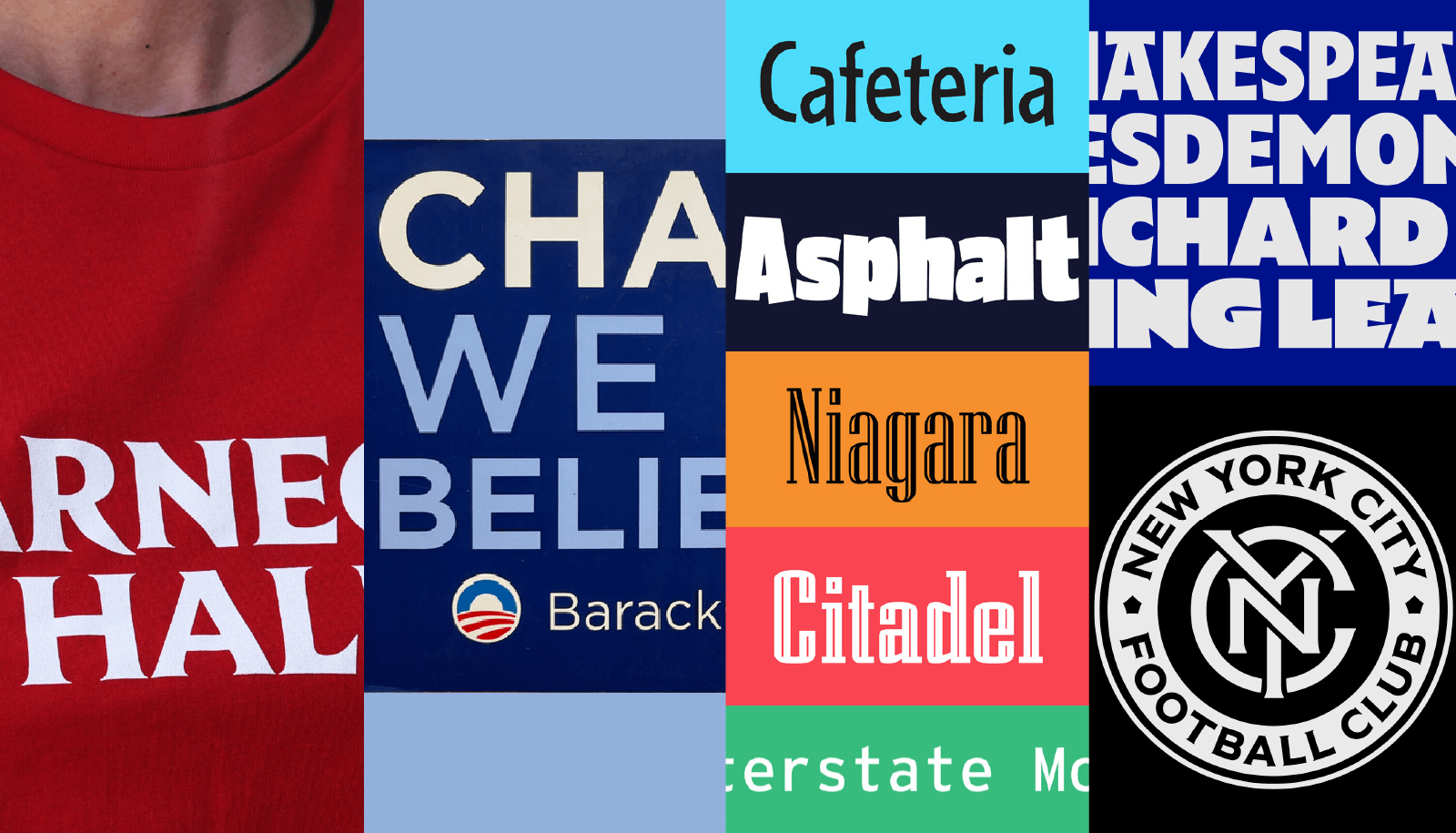
Talk: Tobias Frere-Jones
Of Subways & Offsides
Tobias Frere-Jones recounts the research and design process behind the brand new typography that he and Nina Stössinger created for the New York City Football Club. How to connect a relatively new sports team (and in a sport that’s less popular in the United States) deeply to the identity and pride of this iconic city? Tobias and Nina studied the visual history of the city’s transit system, and let its loudness and grit inform their fresh and bold design to create a bond with citizens and fans.